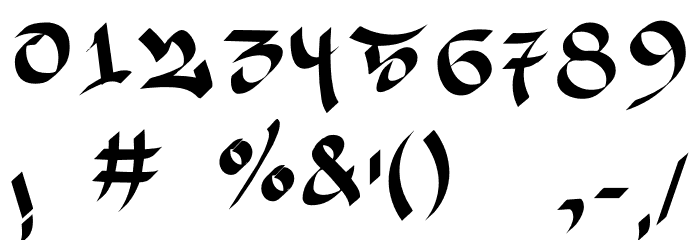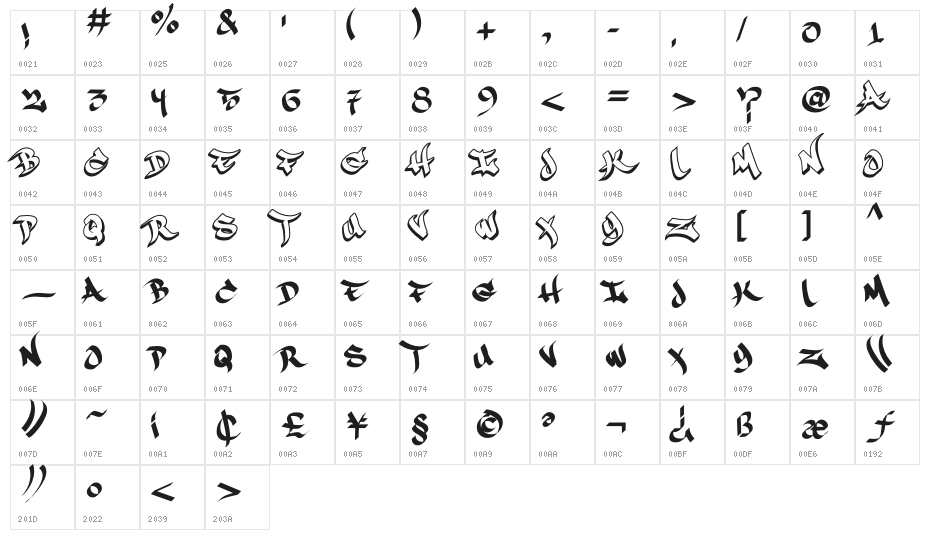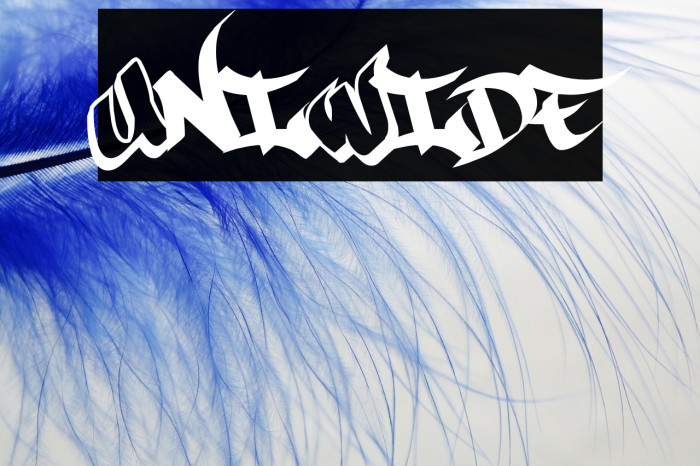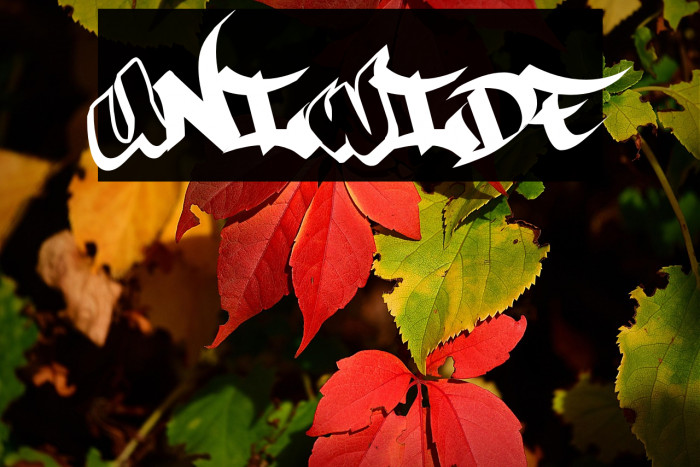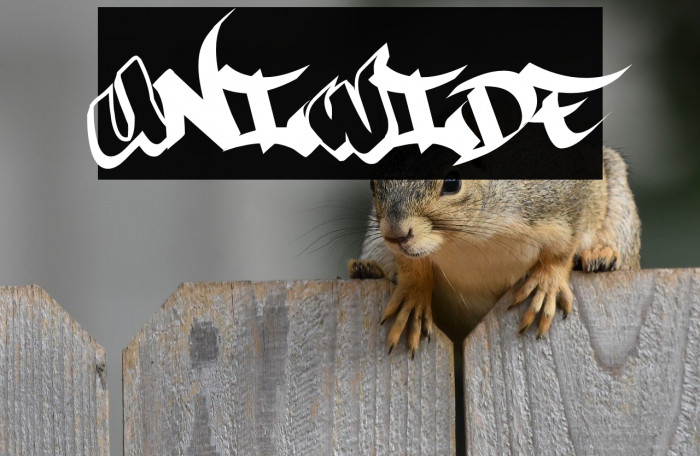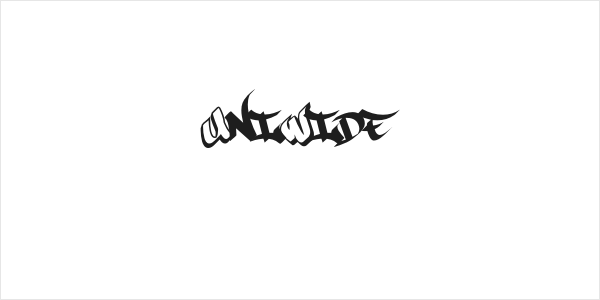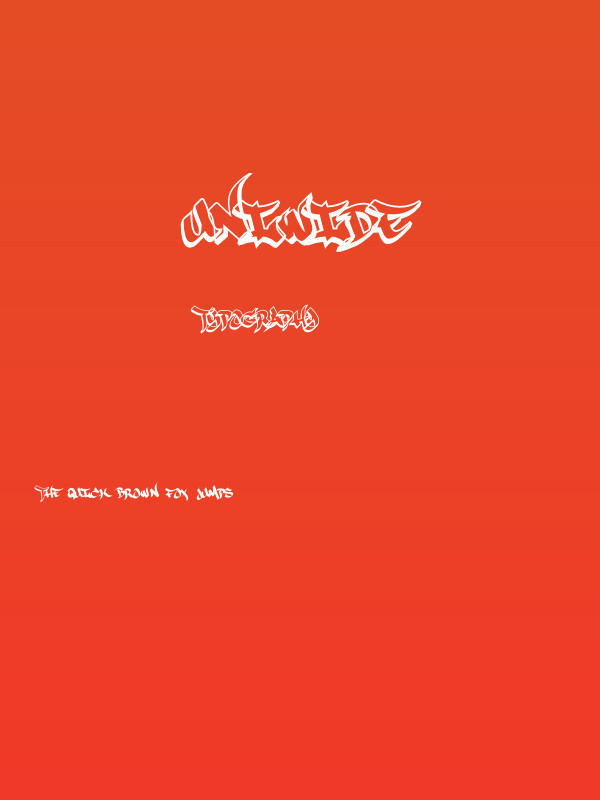
UniWide Font
UniWide Description
This font exhibits a bold, graffiti-inspired style with sharp, angular edges and a dynamic flow. The uppercase letters are highly stylized, featuring exaggerated curves and pointed tips, which give a sense of movement and energy. The lowercase letters maintain the same edgy aesthetic, ensuring consistency throughout the typeface. Numbers and special characters are equally expressive, adding to the font's overall rebellious and urban feel. The thick strokes and high contrast between thick and thin lines enhance its visual impact, making it ideal for attention-grabbing designs.
| Overall Style | Modern, Urban |
| Proposed Projects | Perfect for street art designs, urban-themed posters, music album covers, and edgy branding projects. |